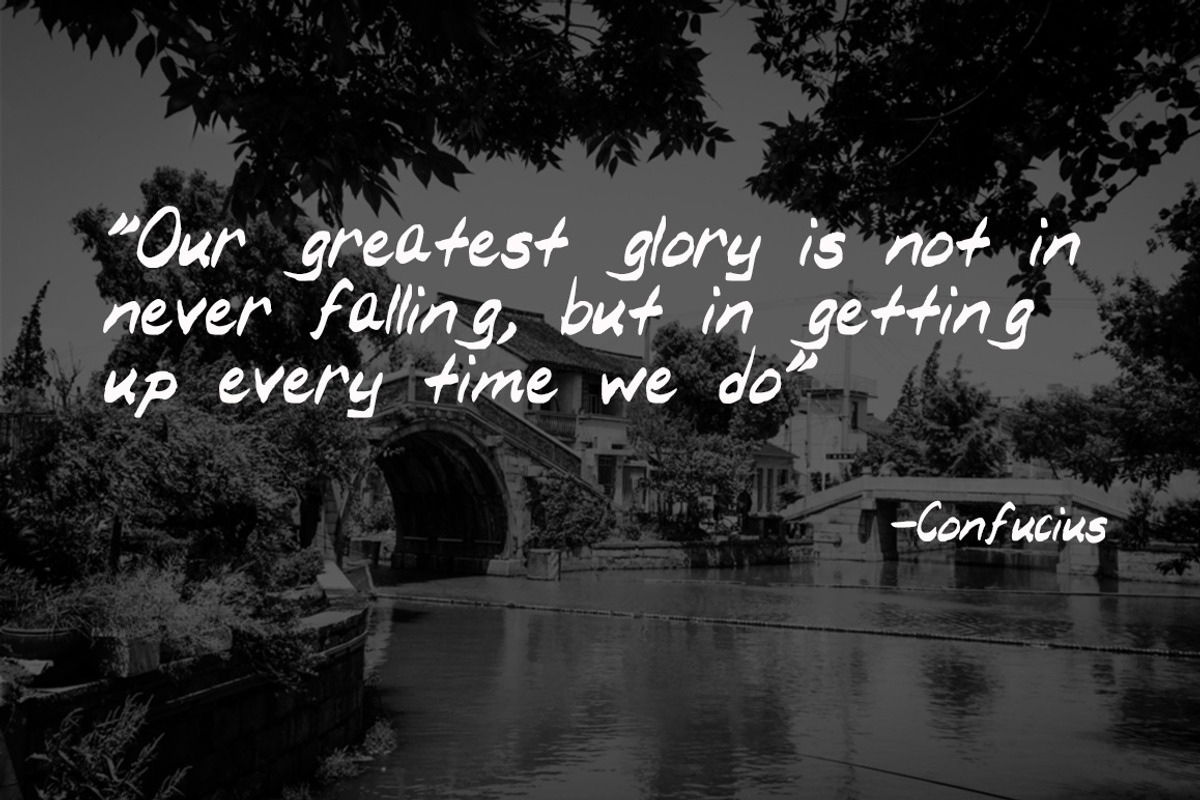
Shanghai - Brush Handwritten Font
Shanghai - Brush Handwritten Font by amyxbao is a font selected for branding, posters, packaging, typography.
Shanghai - Brush Handwritten Font by amyxbao fits naturally into Branding, posters, packaging, typography.